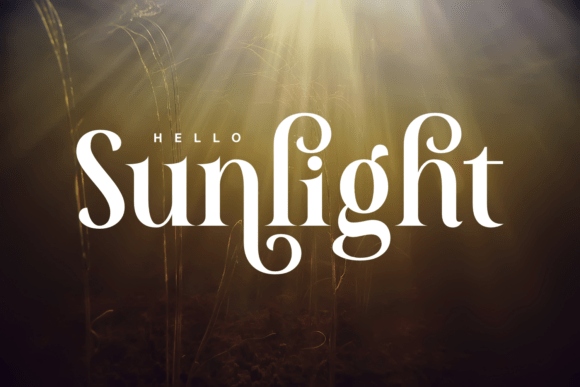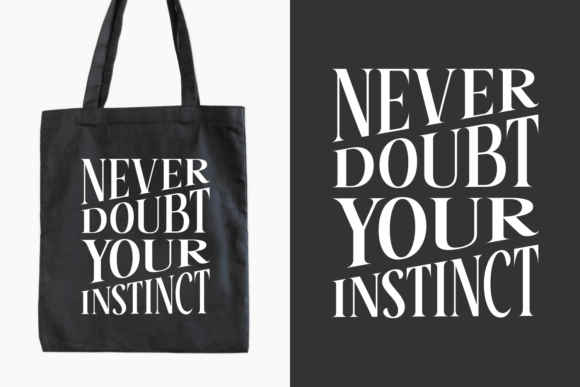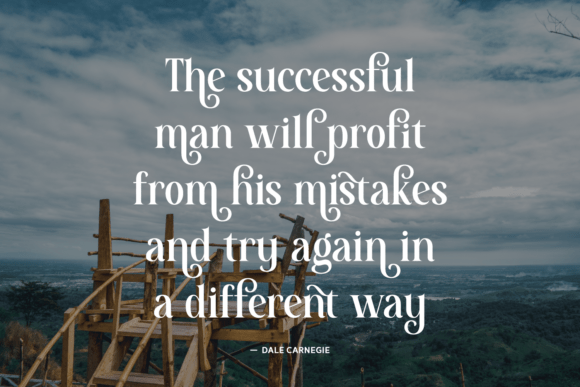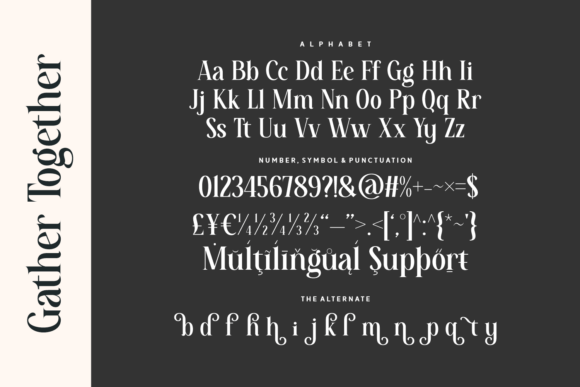
Introduction to Gather Together Font
Gather Together is a warm and expressive modern serif font that blends bold elegance with playful swashes and unique details.
Its stylish curves and high-contrast strokes make it a perfect choice for branding, invitations, posters, and editorial designs Gather Together captures a sense of connection and celebration, bringing sophistication and charm to any project.
Key Features of Gather Together Font